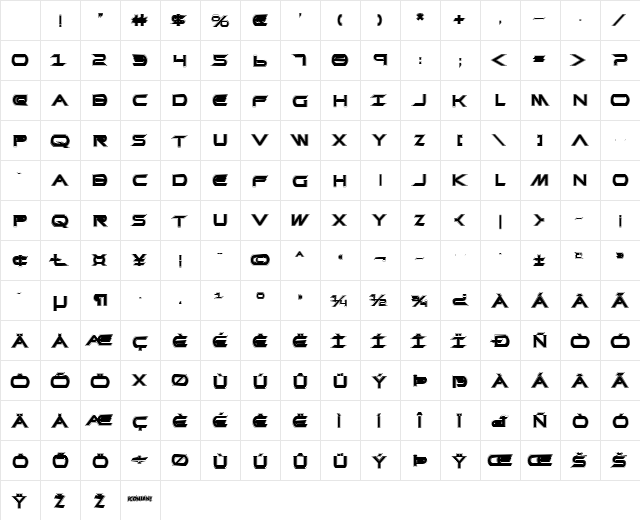
Promethean College brings high-energy athletic personality to the page - its confident, muscular forms are built for impact. Its bold stroke weight gives it real presence on the page.
Pro Tip: Use Promethean College in all-caps headlines where its athletic energy can fully express itself. Pair with a solid, simple sans for supporting text.